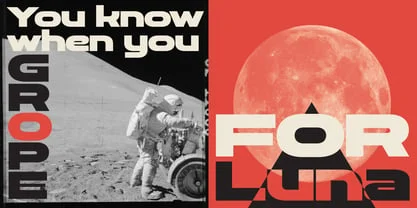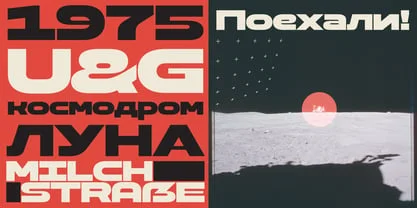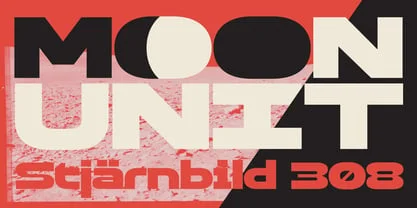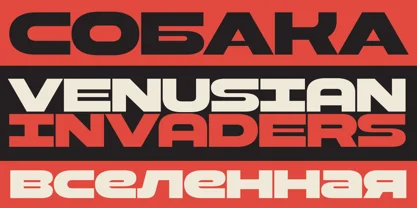
Strelka Font
There is a particular satisfaction in finding a typeface that delivers a confident voice that adapts to diverse briefs without compromise. Strelka consistently provides it. The typeface brings a versatile sensibility to a broad range of creative disciplines, with optical balance across all weights that holds up whether the work is print-first or screen-first.
In practice, Strelka proves particularly effective for social media graphics, web design, logo design, signage systems, advertising campaigns. Designers reaching for it find that the type decisions feel resolved rather than laboured — a useful quality when client timelines are tight.
The range of applications extends to brand identity systems, product labels, editorial layouts, annual reports. That breadth is deliberate: the proportions and spacing were stress-tested across a wide range of mock briefs before the typeface was finalised.
Pairing Strelka with a contrasting serif or a neutral grotesque gives mixed-format layouts a clear visual grammar without requiring constant size adjustments to establish hierarchy.
Brand strategists building visual languages find Strelka a reliable choice for projects that demand both personality and restraint. The design avoids the self-conscious quirkiness that dates quickly, settling instead for considered distinctiveness that holds up over time.